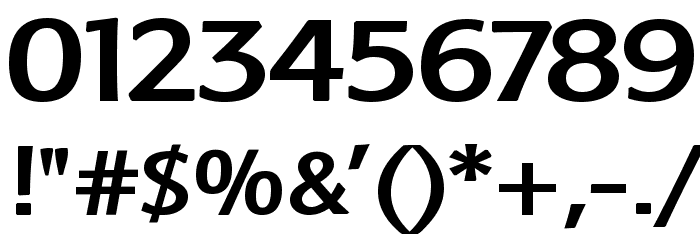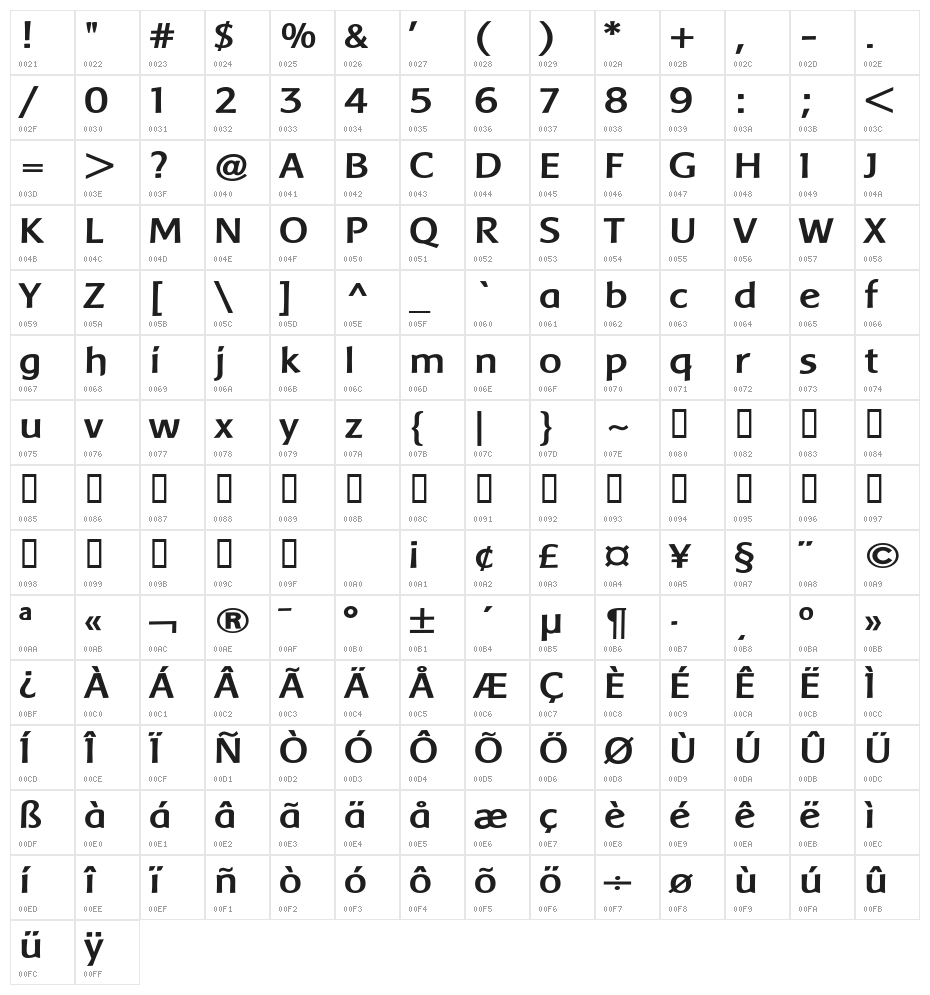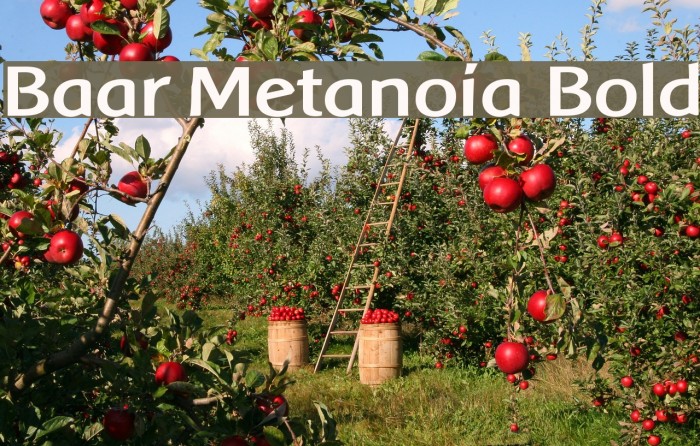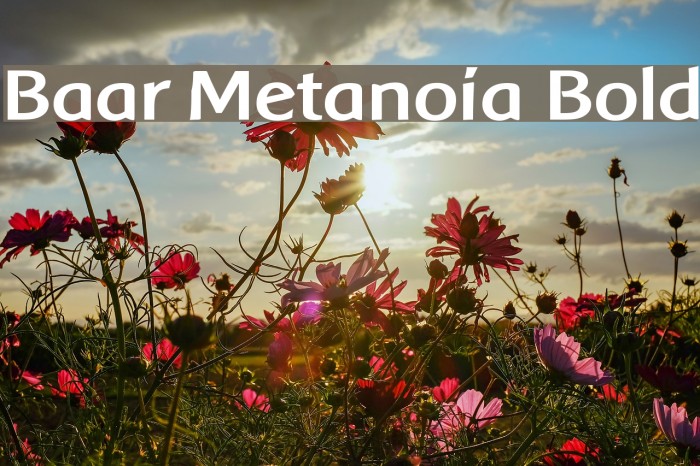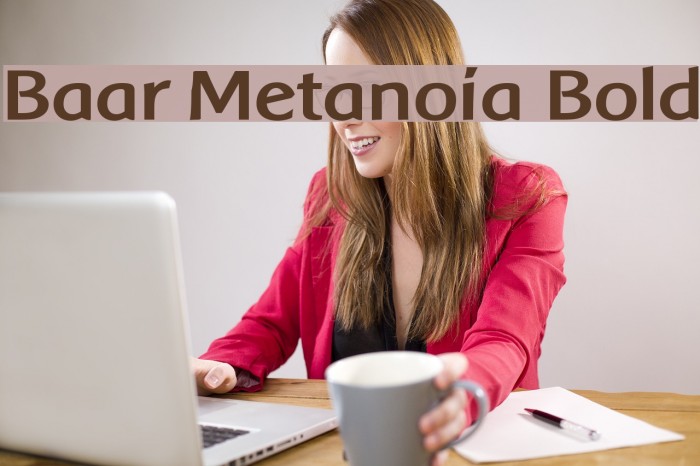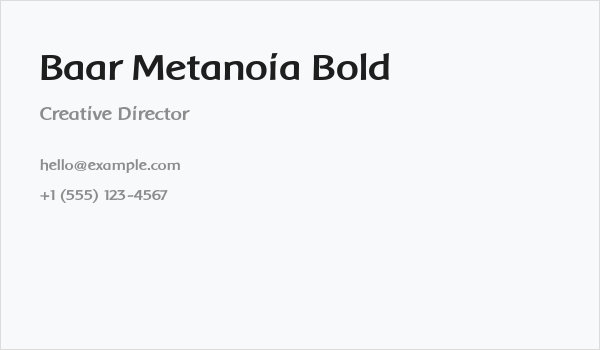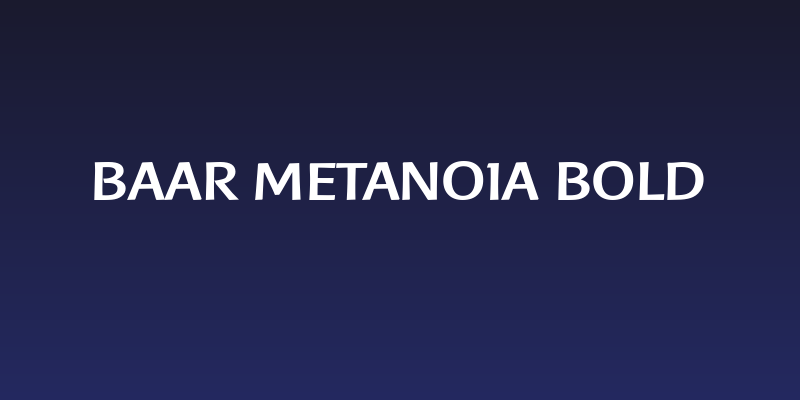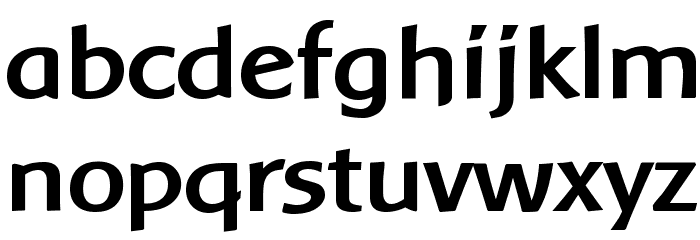
Baar Metanoia Bold Font
Baar Metanoia Bold Description
This typeface features a bold and modern sans-serif design, characterized by clean lines and a strong presence. The uppercase letters are uniform in height, providing a sense of balance and stability. The lowercase letters maintain a consistent style, with rounded edges that soften the overall appearance. Numbers are clear and easily distinguishable, making them suitable for various applications. The special characters are well-integrated, ensuring versatility in usage. This font's bold weight and contemporary style make it ideal for impactful headlines and branding projects.
| Proposed Projects | Ideal for branding, advertising, headlines, and digital media projects. |